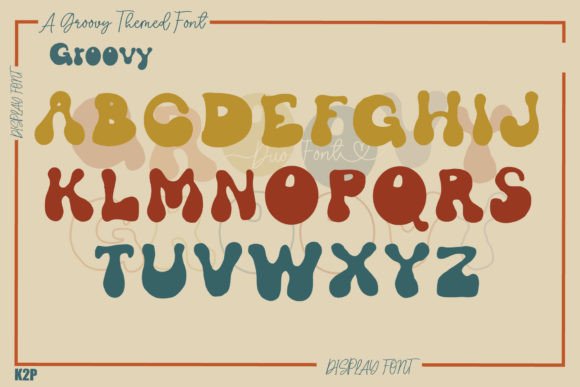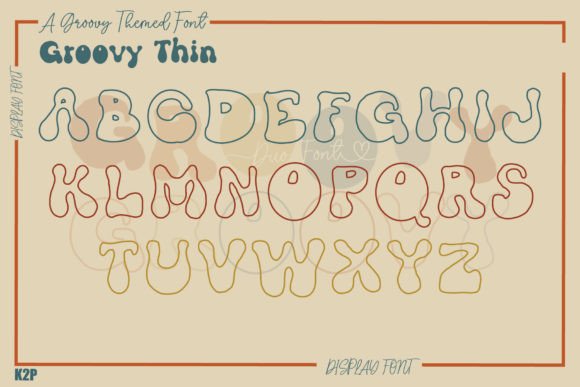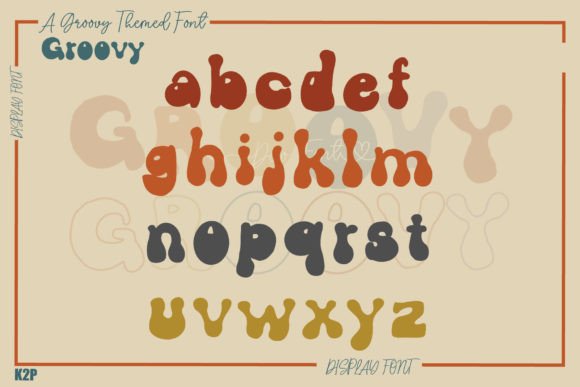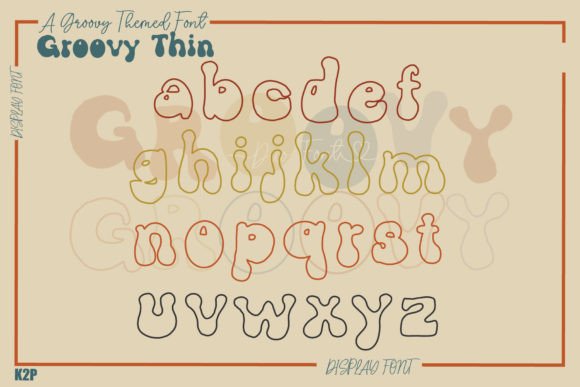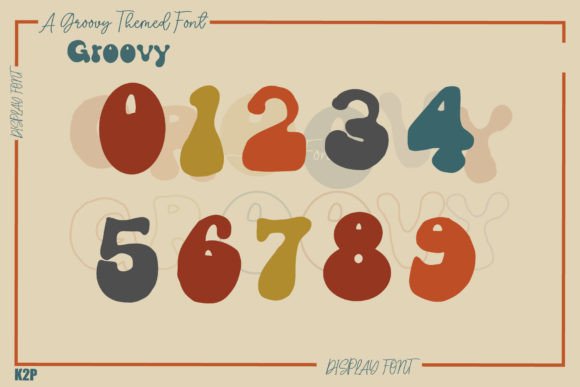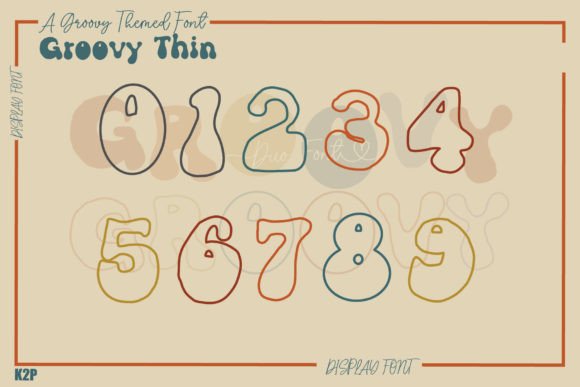
Get Ready to Groove: Introducing the Groovy Font
You know that moment when you’re browsing through font collections and suddenly stumble upon the perfect one? For designers, it’s like finding a hidden gem – a spark that ignites creativity and sets the tone for an entire project. That’s exactly what happened when we discovered the Groovy Font, a fun, retro, and whimsical display font that’s sure to captivate your senses.
With its incredibly distinct and timeless style, the Groovy Font is perfect for designers looking to add a touch of nostalgia and playfulness to their designs. Whether you’re working on a vintage-inspired campaign, a quirky logo, or a whimsical poster, this font is sure to elevate your creations and leave a lasting impression. The Groovy Font is a valuable addition to any designer’s toolkit, offering endless possibilities for creative expression.
Groovy Font Key Features
- Font Family: Groovy Font is a sans-serif font family designed for digital use, with a unique blend of modern and playful characteristics.
- Character Set: The font family includes a wide range of characters, including Latin, Cyrillic, and Greek alphabets, as well as various punctuation marks and symbols.
- Size: The font family includes multiple weights, ranging from 100 to 900, allowing for a wide range of font sizes and styles.
- Unique Characteristics: Groovy Font features a distinctive, hand-crafted look with subtle irregularities and nuances, giving it a unique personality that sets it apart from other sans-serif fonts.
Groovy Font Review
Hey, fellow designers! I’m excited to share my thoughts on the Groovy Font, a quirky and fun font that’s perfect for creating a groovy vibe.
Here’s what works well for me:
- ✨ Unique and playful characters that add a touch of personality to any design
- ✨ Excellent legibility, making it easy to read even at small font sizes
- ✨ Great for creating eye-catching headlines and titles that grab attention
However, I do have some concerns:
- ⚠️ Limited support for foreign languages, which may be a problem for international projects
- ⚠️ May not be suitable for formal or professional designs, as it’s a bit too playful
- ⚠️ Some users may find the font too loud or overwhelming, so use it sparingly
Overall, I think the Groovy Font is a great addition to any designer’s toolkit. It’s perfect for creative projects, social media graphics, or any design that needs a fun and quirky touch. Just be mindful of its limitations, and you’ll be groovin’ in no time!
Alternatives to Groovy Font
Great Vibes is a modern script font that works well for titles, headings, and short phrases. It’s perfect for creating a fun and playful atmosphere in designs. Compared to Groovy Font, Great Vibes has a more refined and elegant feel, making it suitable for a wider range of designs.
Alex Brush is a calligraphic script font that’s ideal for use in titles, headings, and body text. It’s a great choice for designers who want to add a touch of elegance and sophistication to their designs. In comparison to Groovy Font, Alex Brush has a more subtle and refined feel, making it suitable for more formal designs.
Pacifico is a beautiful script font that’s perfect for creating a relaxed and casual atmosphere in designs. It’s ideal for use in titles, headings, and body text, and works well in a variety of design contexts. Compared to Groovy Font, Pacifico has a more laid-back and effortless feel, making it suitable for designs that require a more casual tone.